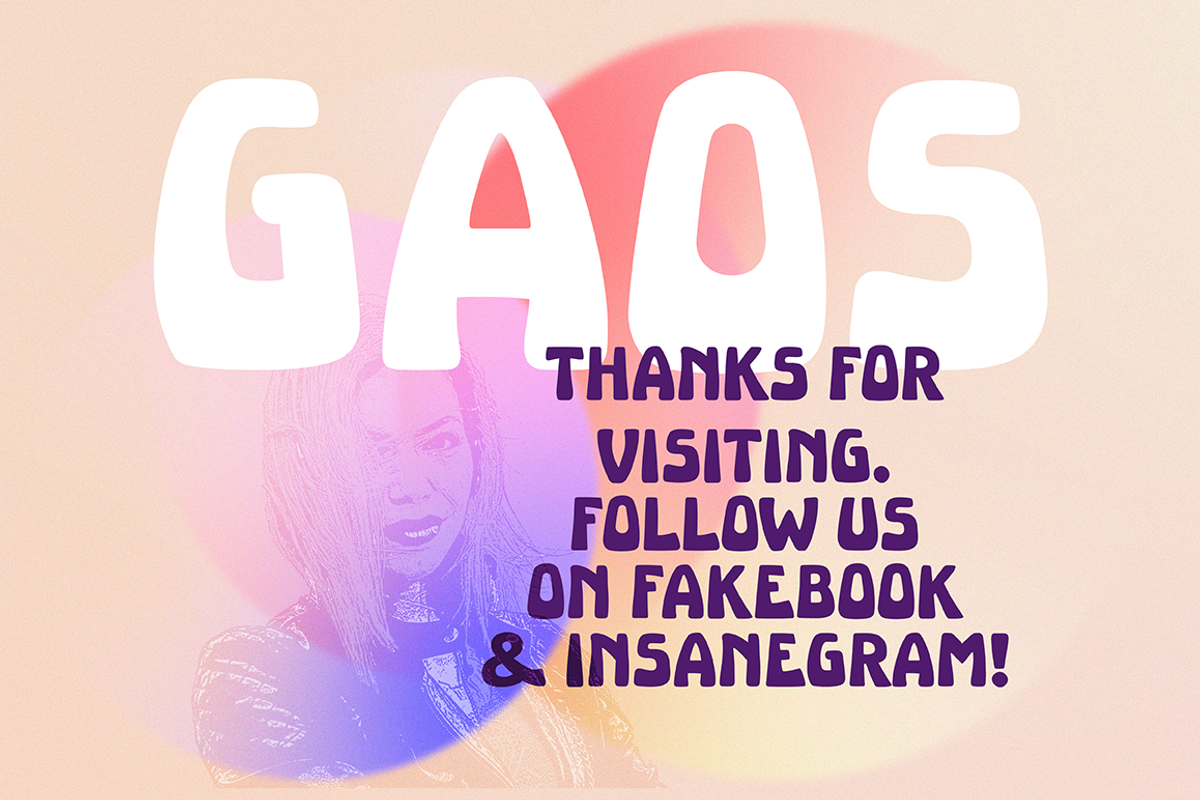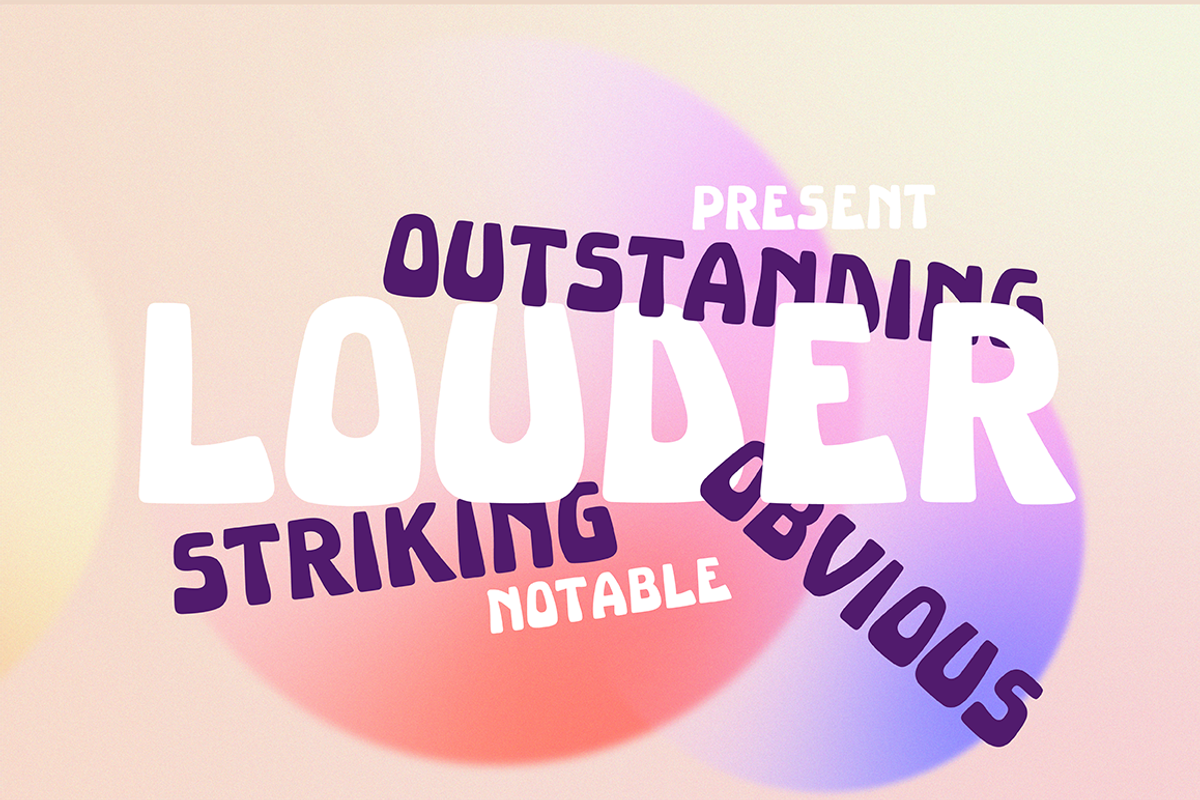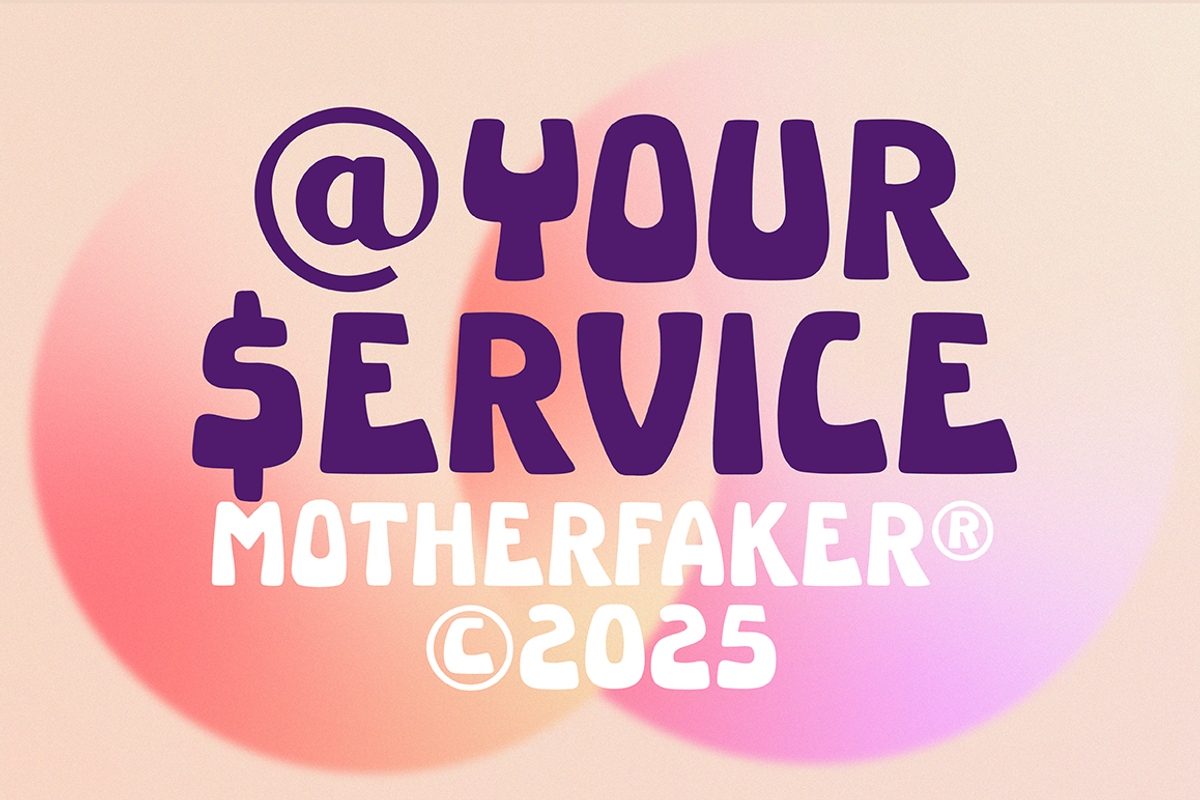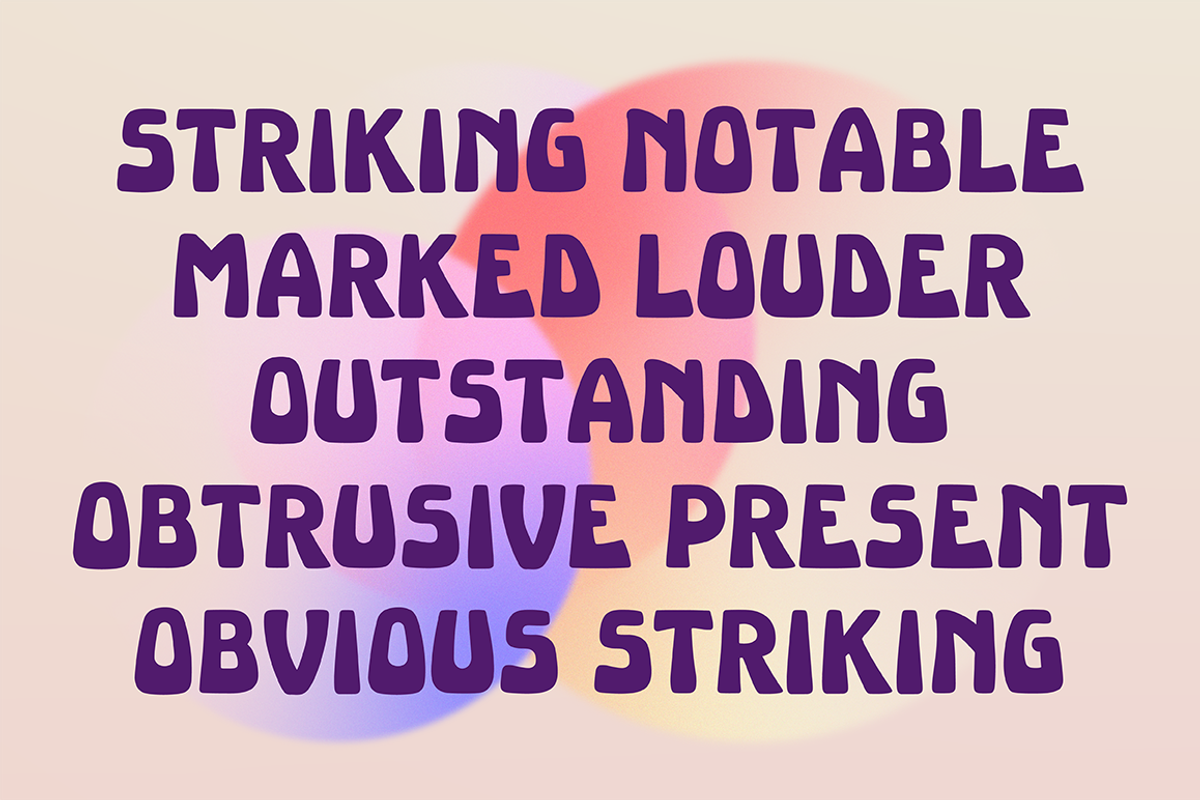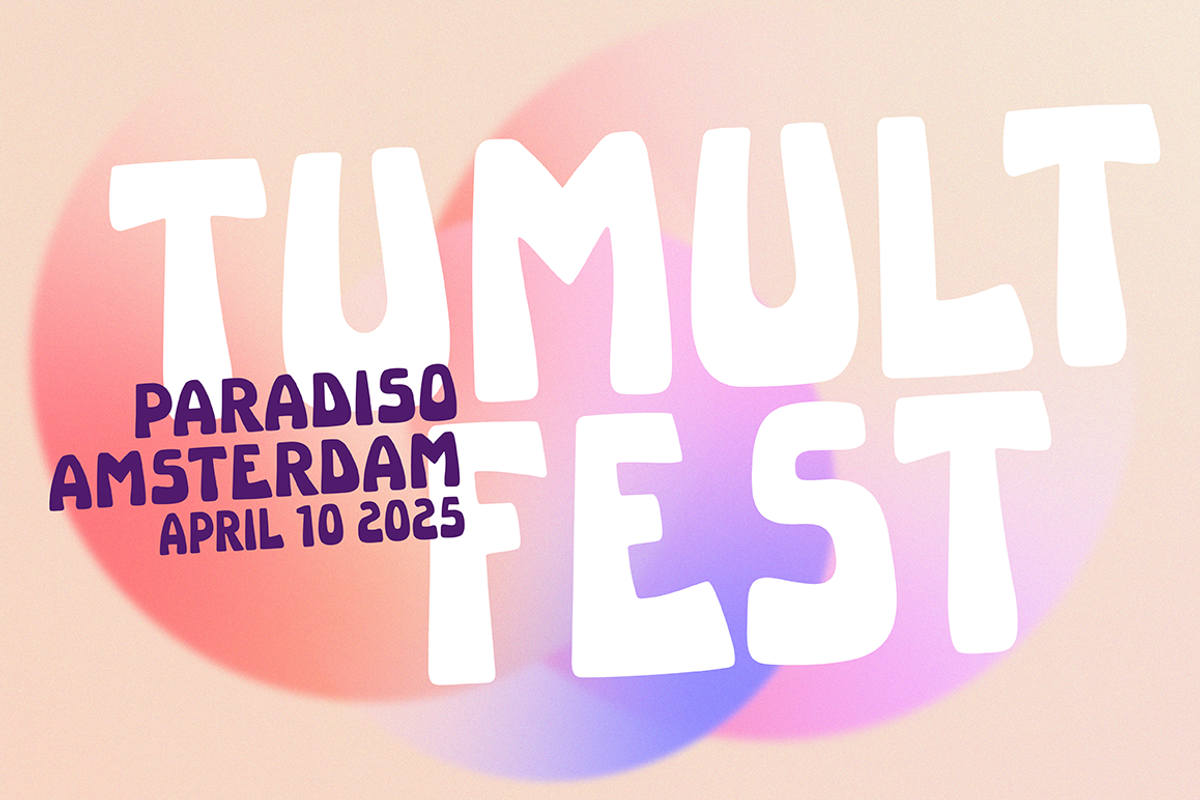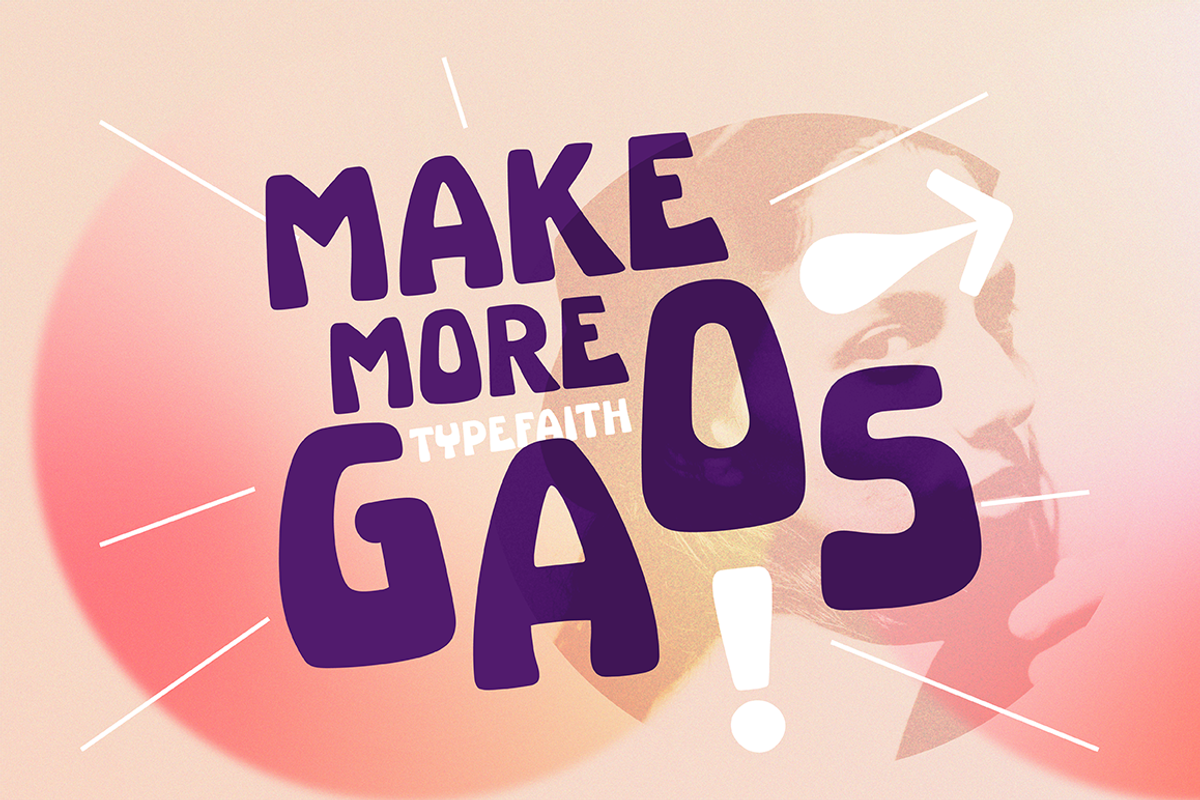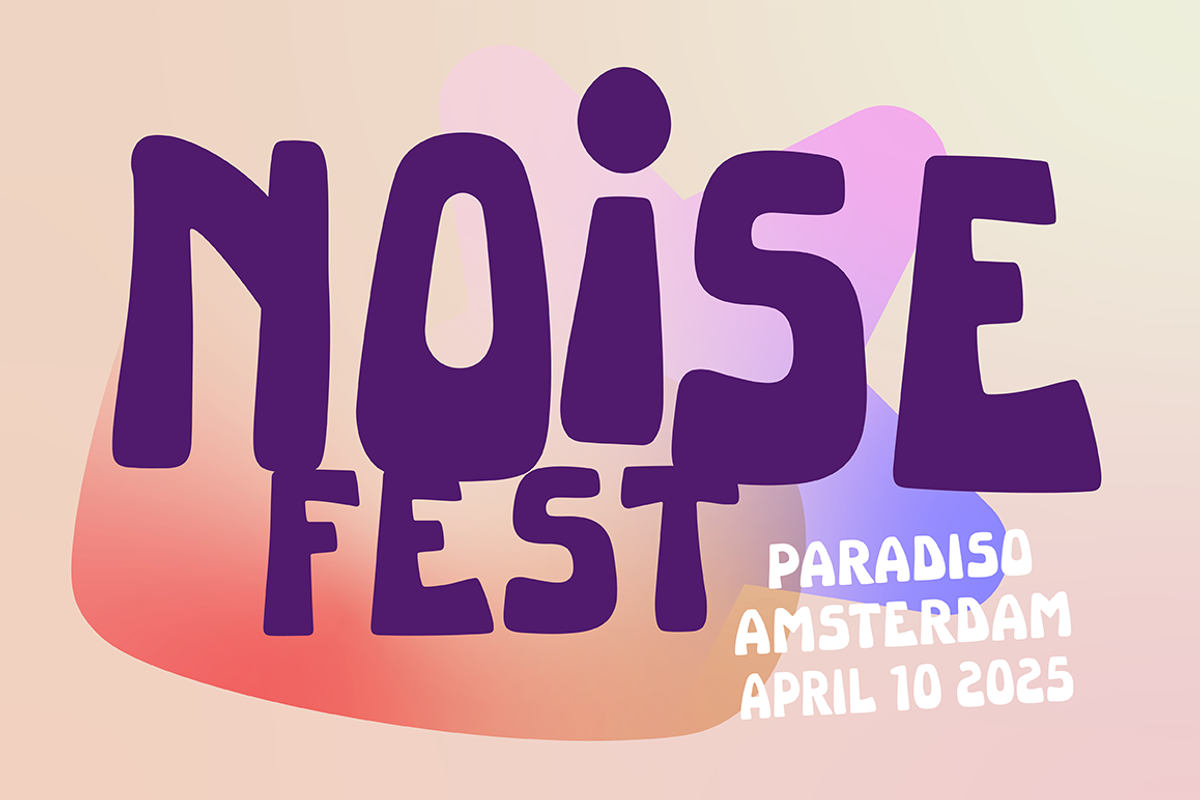
Gaos – Cutting-edge
Gaos is an actual type rebellion. Cutting-edge font for bold statements. Cut to the point with font that has plenty of attitude. This type style can feel direct, even a little confrontational, but in the right context, it conveys a message of authority. This direct font style is currently making a statement in look-at-me branding. It is a solid sans serif font based on handwritten poster typography from the thirties. The renewed vibe makes the font very suitable for contemporary typography of books, posters, etc. The font has a friendly, cheerful, funny look that can attract attention. Gaos was designed by Leon Hulst for TypeFaith Fonts. This font works when you want to draw distracted eyes and hold attention for longer, or to communicate messages strongly and directly.